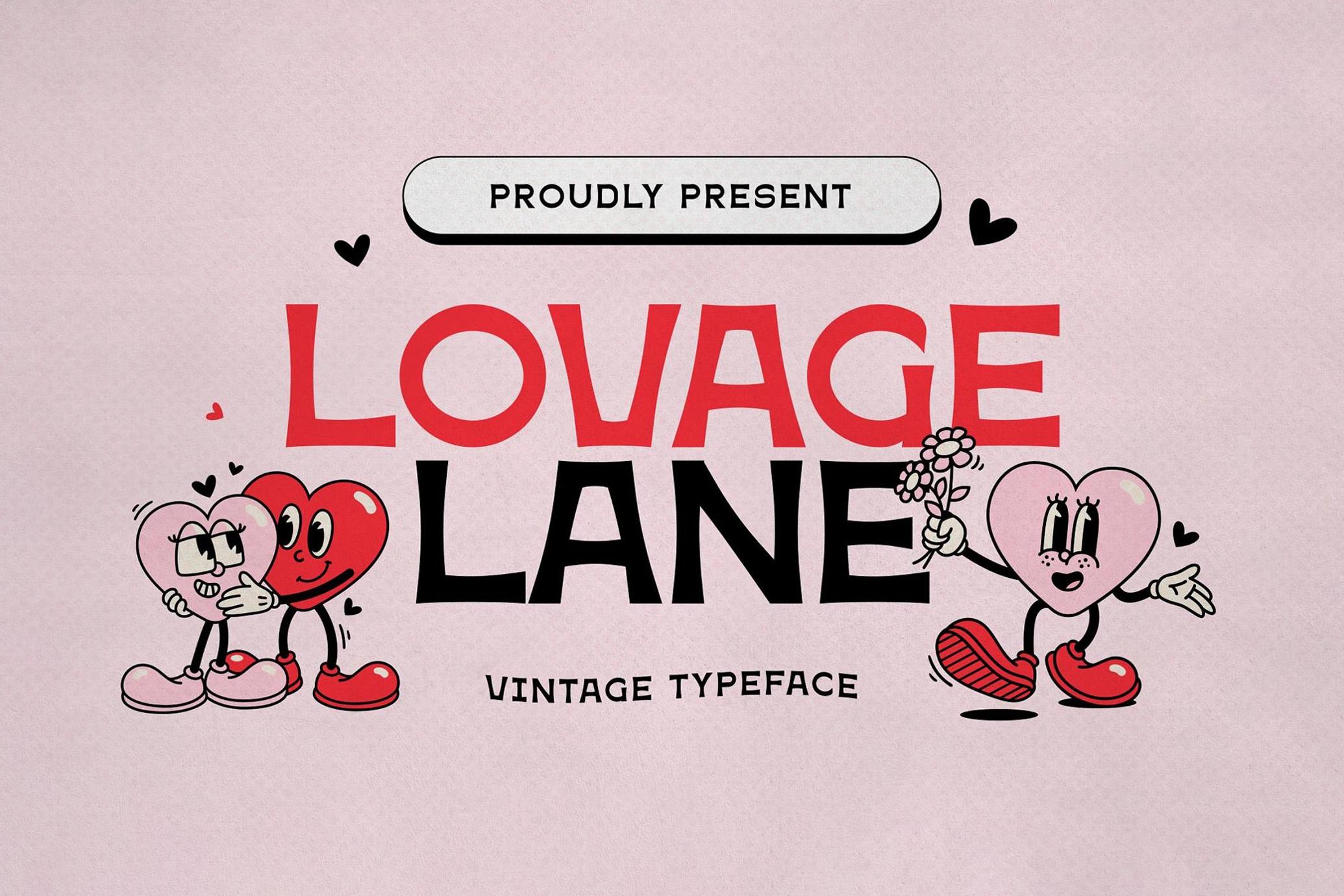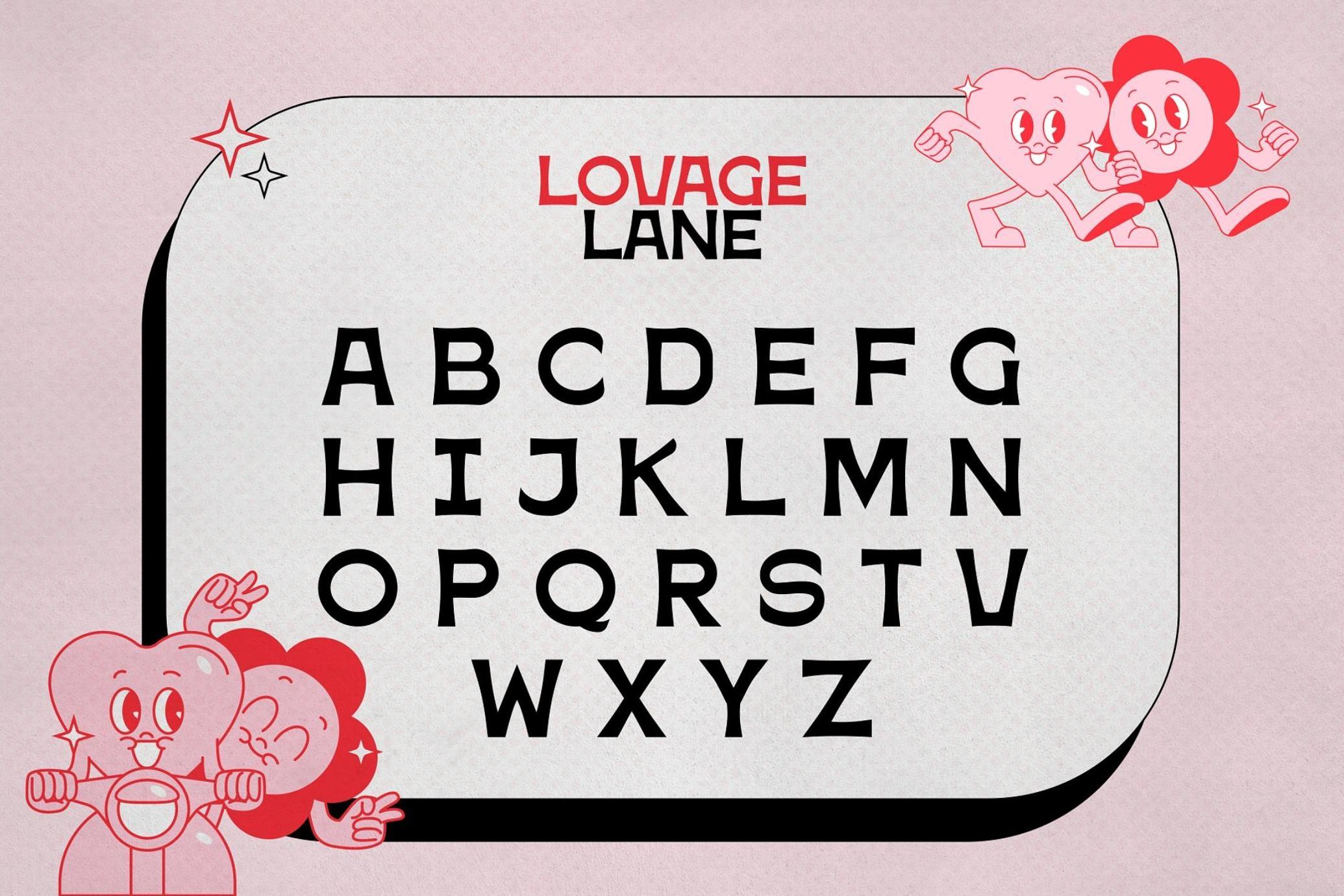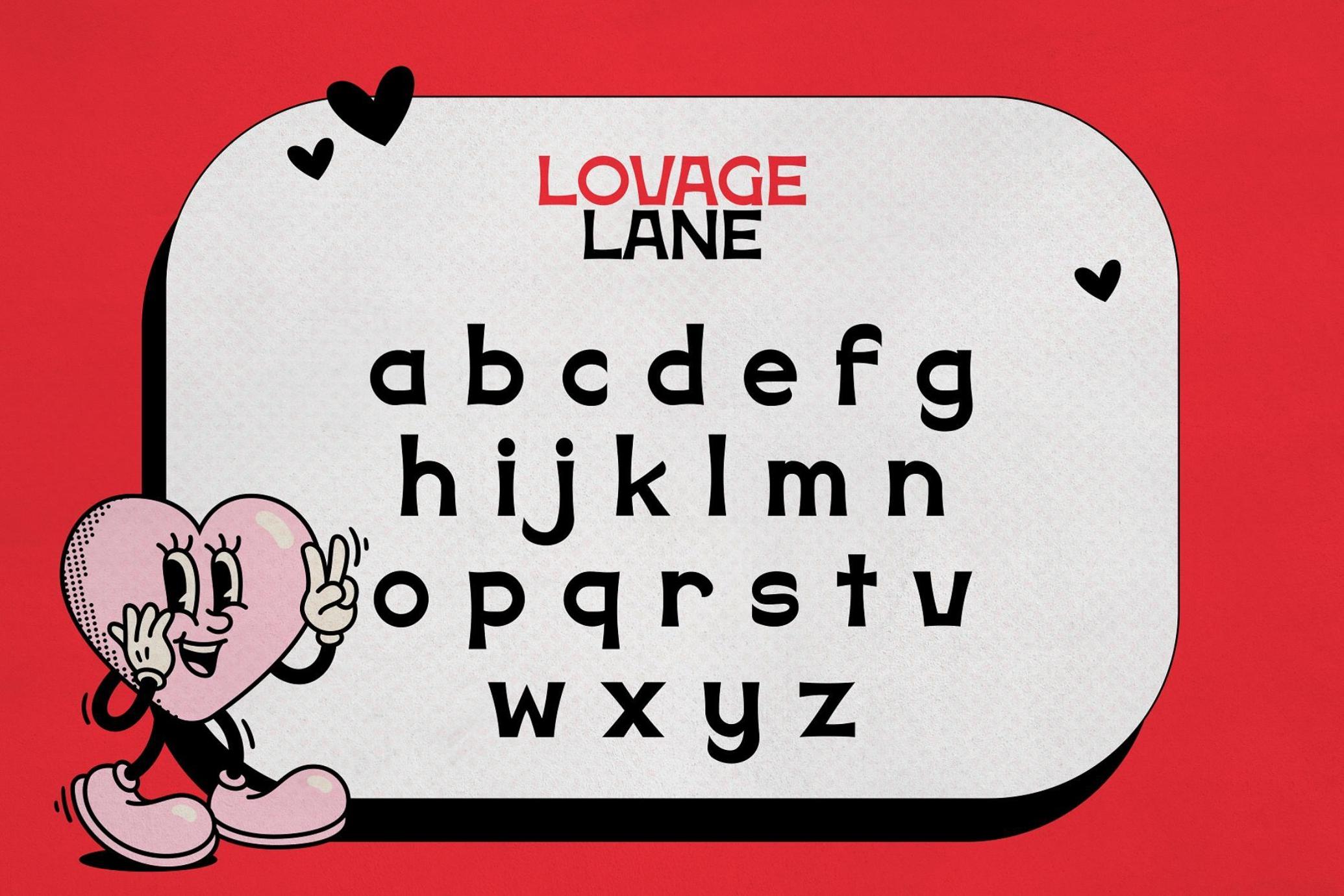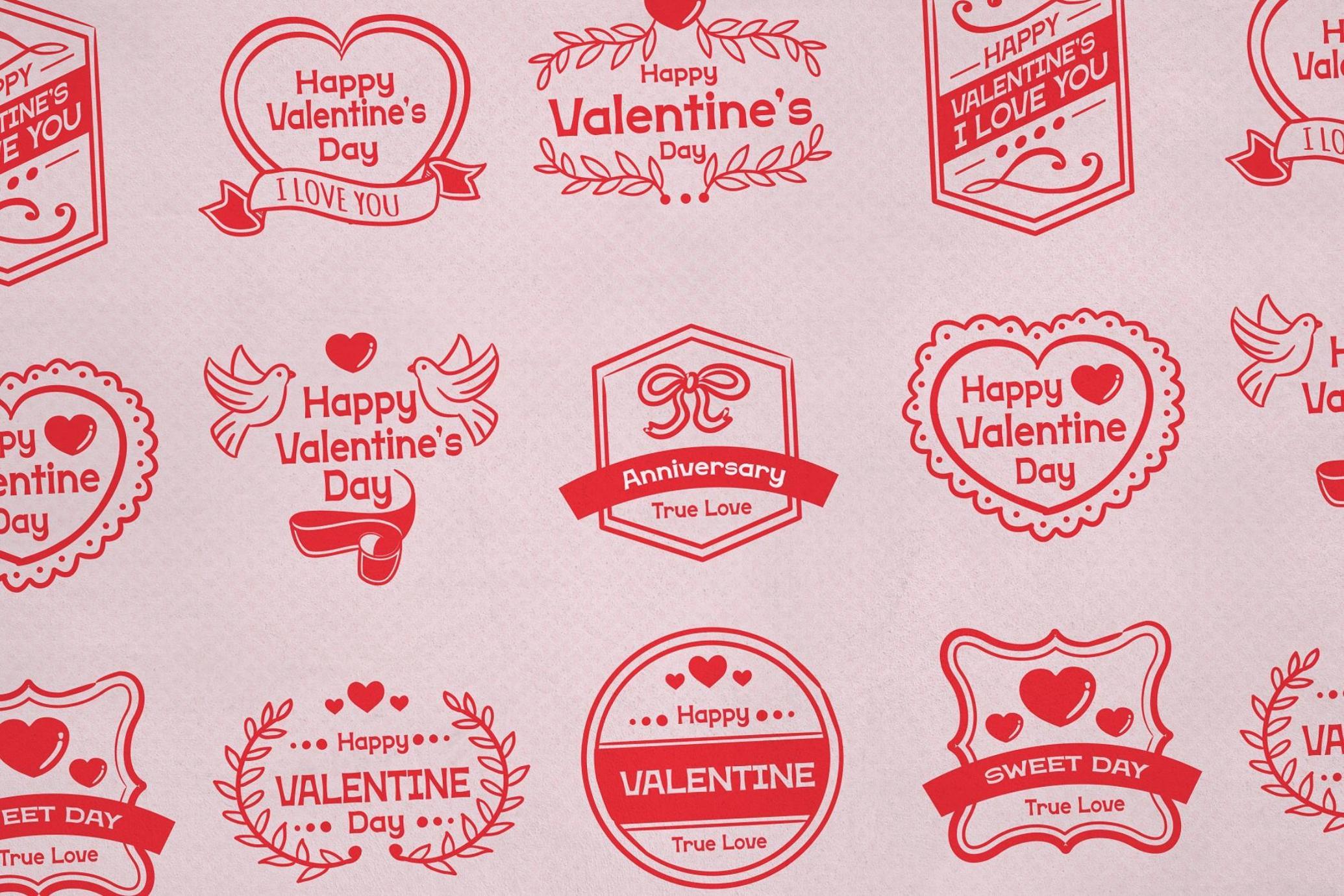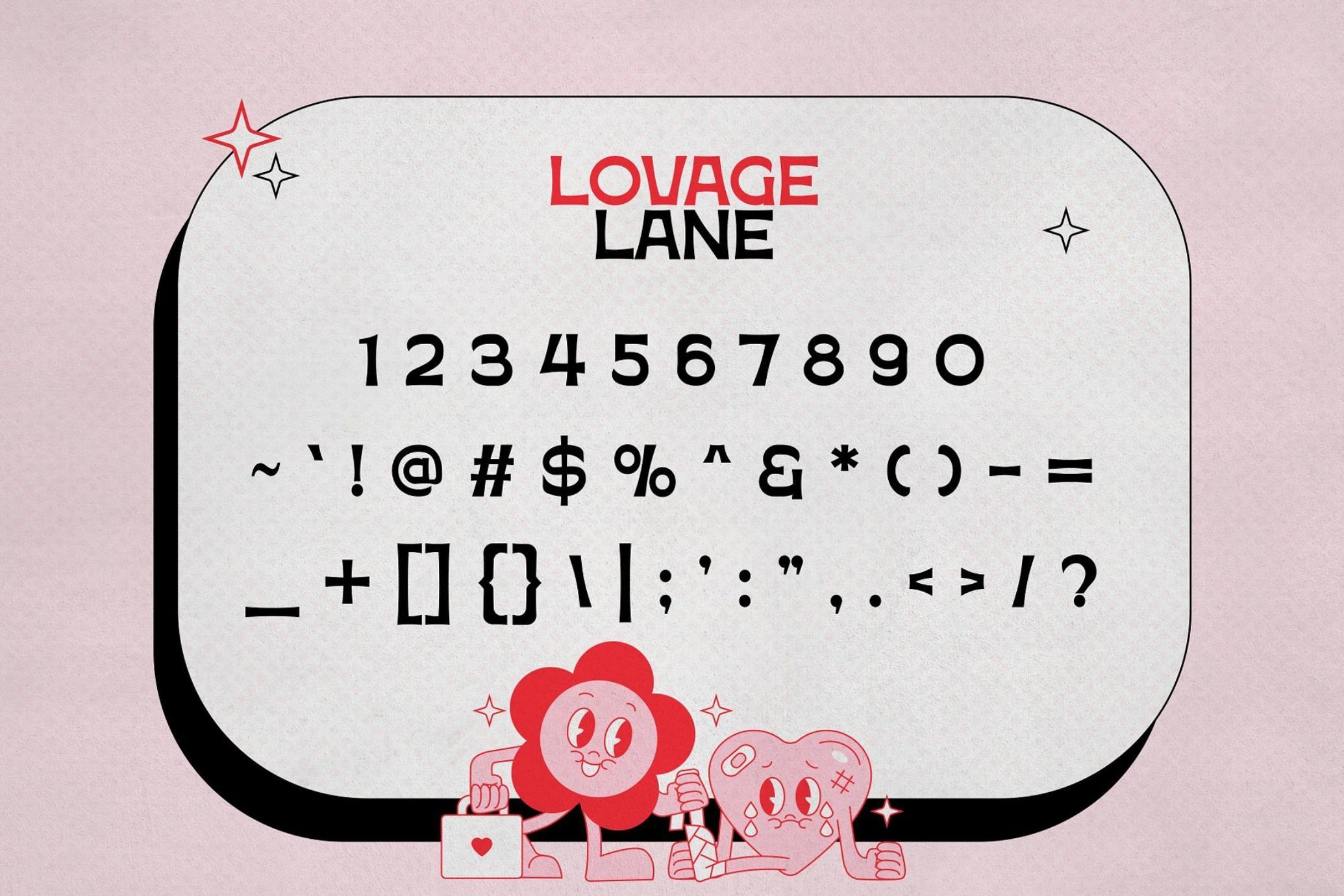
Lovage Lane
Dive into nostalgia with the Lovage Lane typeface, a charismatic nod to the retro era that encapsulates the whimsical spirit of classic cartoons. Inspired by vintage aesthetics, this font marries playful curves with robust character, crafting an ambiance that harks back to Saturday mornings spent in front of the TV with your favorite animated shows.
Lovage Lane is not just a typeface; it's a time machine. Its unique letterforms, reminiscent of hand-drawn cartoon titles, immediately transport you to a world of technicolor dreams and carefree laughter. Each glyph has been meticulously designed to capture the essence of vintage animation, making it the ideal choice for projects that aim to evoke nostalgia and charm.
Whether you're crafting posters, branding materials, or even an intro for a cartoon show, Lovage Lane promises to sprinkle a dash of retro magic, ensuring your designs stand out with authentic, bygone-era flair. Turn to Lovage Lane and let your projects tell tales of timeless tales and whimsical wonders!